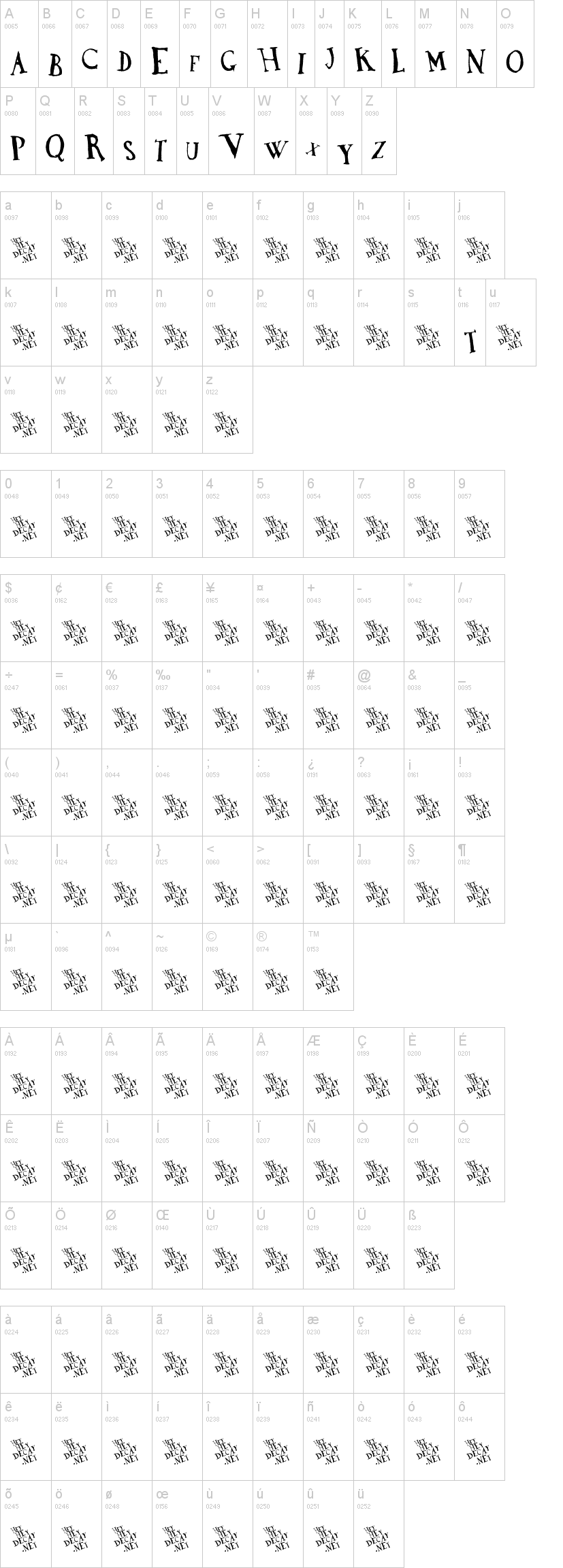
Шрифт DaDa Antiquerist
All letters are caps, but they are different, so that you will get a more random hand written feeling with a little use of the caps lock.
With two similar letters next to eachother, just do like this: AabB and so on.